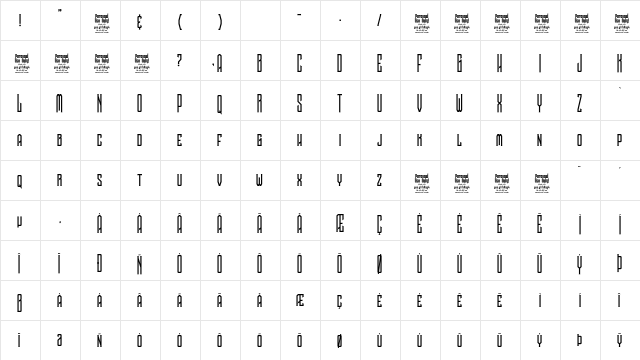
Noggovoso Personal Use Regular
Design Context for Noggovoso Personal Use Typeface
Noggovoso Personal Use is a composed and adaptable typeface that performs quietly and consistently across a wide range of design contexts.
Pro Tip: Use Noggovoso Personal Use in both headline and body roles to test its range before committing to a single application.